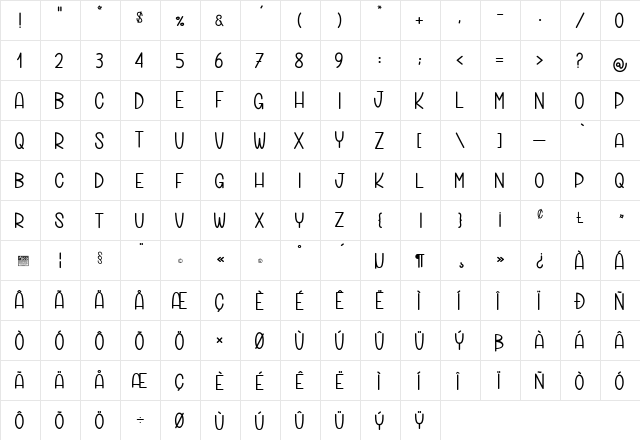
Marbles Trick 1_PersonalUseOnly Regular
Design Context for Marbles Trick 1_PersonalUseOnly Typeface
Marbles Trick 1_PersonalUseOnly is a composed and adaptable typeface that performs quietly and consistently across a wide range of design contexts.